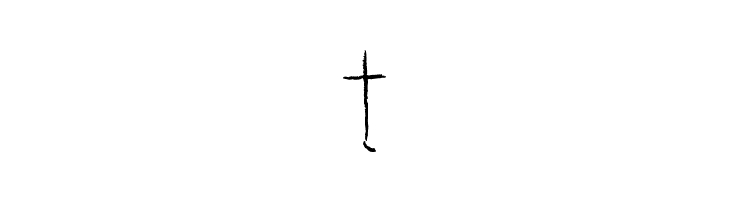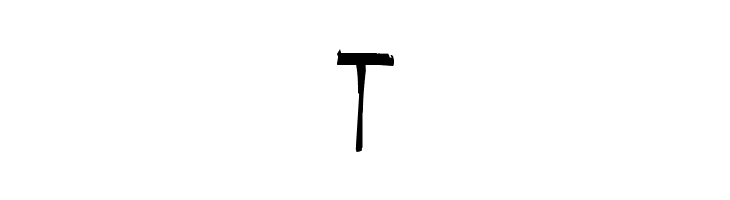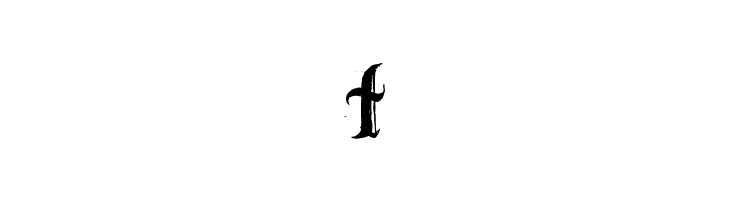
• [[[O]]] Basic
( Fonts by Luis Angel Uribe - luisangeluribe.wordpress.com )
A modern, minimalist font with thin, elongated strokes and geometric influences.
• [[[o]]] brushhh
( Fonts by Luis Angel Uribe - luisangeluribe.wordpress.com )
A hand-drawn, brush-style font with tall, slender characters and an artistic flair.
• [afGiHmtV]*
• [AULA 402]
• [BichOGothic]
( Fonts by Luis Angel Uribe - luisangeluribe.wordpress.com )
An ornate Gothic font with elaborate flourishes and bold, dramatic strokes.
• [First Grader]
A playful, hand-drawn font with a whimsical and informal style.
• [FREEWIND]
A playful, bold, hand-drawn font with thick outlines and a cartoonish style.
• [Moving_Carton]
A rugged, distressed font with a hand-drawn, vintage style.
• [OAKLAND] PERSONAL USE Regular
A bold, textured decorative font with a vintage, handcrafted feel.
• [skateboarding]
( Fonts by Rodrigo German - RASDESIGN )
A bold, edgy font inspired by urban street art and skate culture.